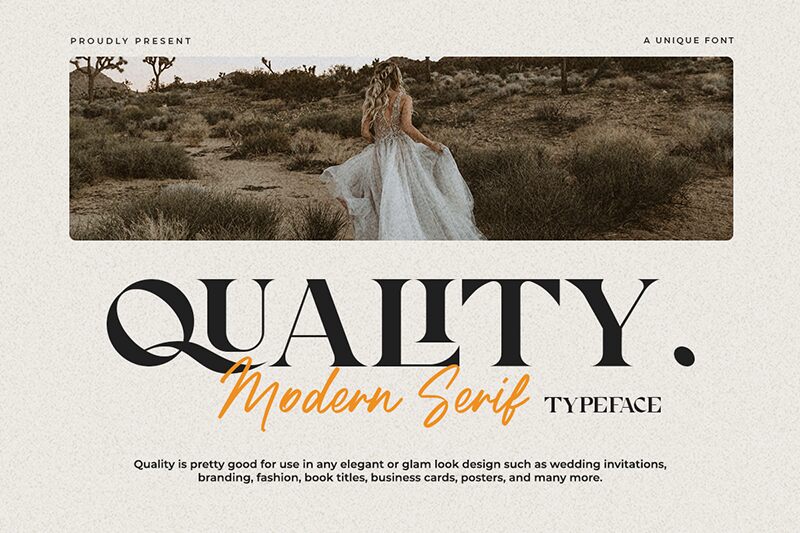
Quality font by Kong Font is a free serif font that blends classic elements with a contemporary twist. This typeface is designed with elegance and sophistication in mind, making it ideal for projects that require a refined and stylish touch. Its versatile nature allows it to capture attention and leave a lasting impression.
Whether you’re designing a logo, enhancing a business card, crafting an invitation, developing a website, or styling a wedding card, Quality font is well-suited for any of these tasks. Its versatility also extends to magazines, covers, headings, posters, social media posts, and advertisements.